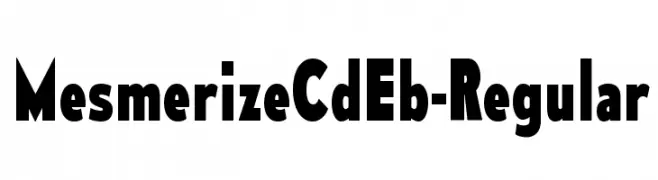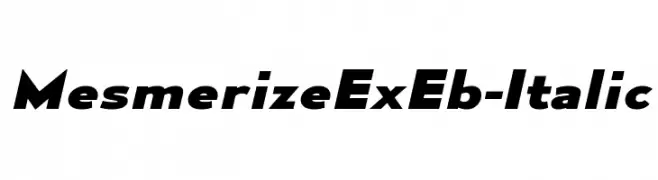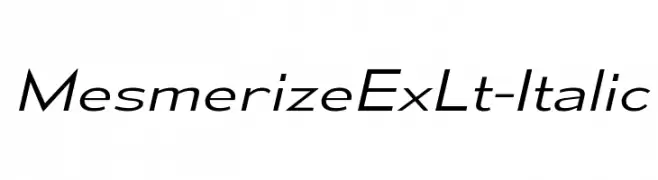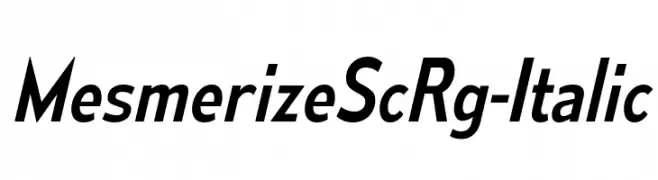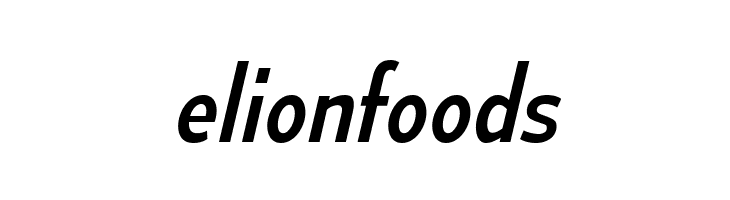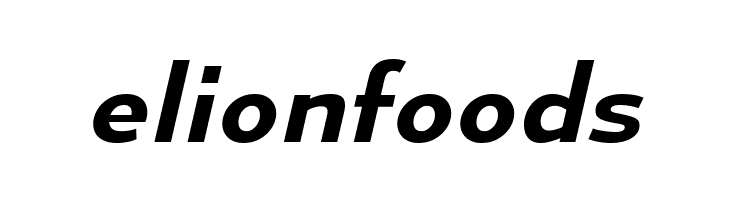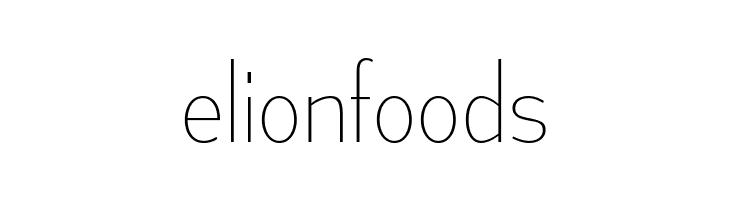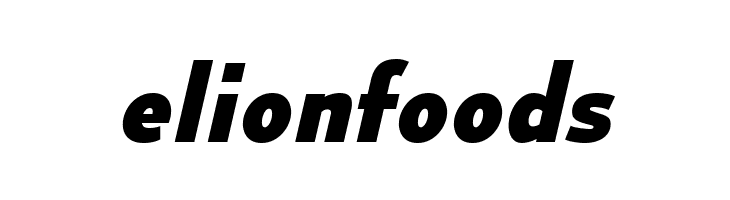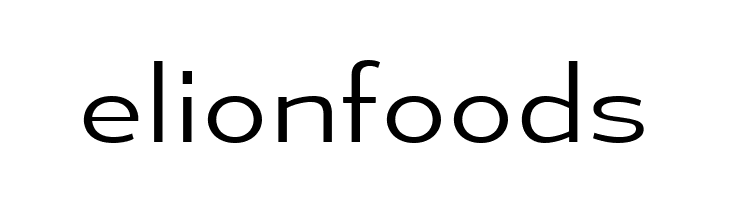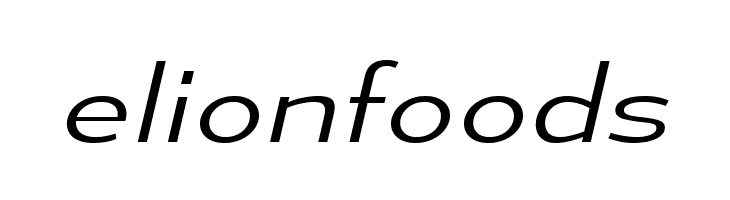
A sleek, modern italic font with consistent stroke width and elegant design.
A modern, italicized font with a sleek and dynamic style.
A bold, geometric font with strong, uniform letterforms.
A modern, minimalist sans-serif font with clean lines and balanced spacing.
A bold, italic font with dynamic slanted letterforms and a modern style.
A modern, geometric sans-serif font with clean lines and balanced proportions.
A modern, bold sans-serif font with a geometric design and excellent readability.
A sleek, modern italic font with clean lines and smooth curves.
A bold, italicized font with dynamic, thick strokes and a strong presence.
A sleek, modern italic font with thin, elongated characters.